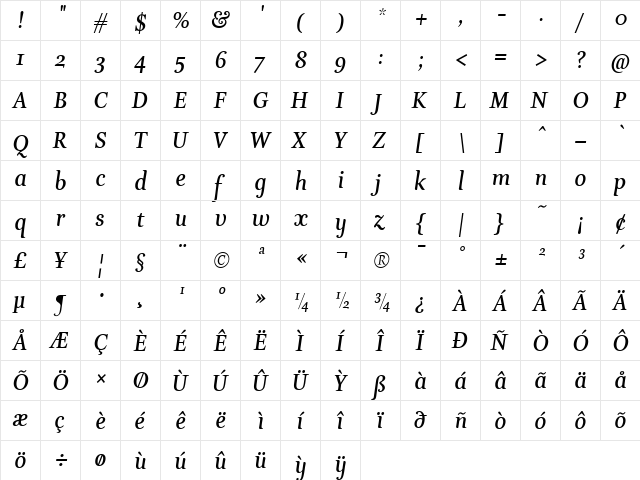
Design Context for EstaBoldItalic Typeface
EstaBoldItalic offers clean, dependable letterforms without strong stylistic allegiance, making it a practical choice for designers who need flexibility. The dynamic lean of this cut emphasises speed and emphasis in any layout. The heavy weight commands attention and anchors typographic hierarchies.
Pro Tip: Try EstaBoldItalic for annotation and caption copy alongside an upright companion — the contrast in angle creates a dynamic but ordered typographic system.